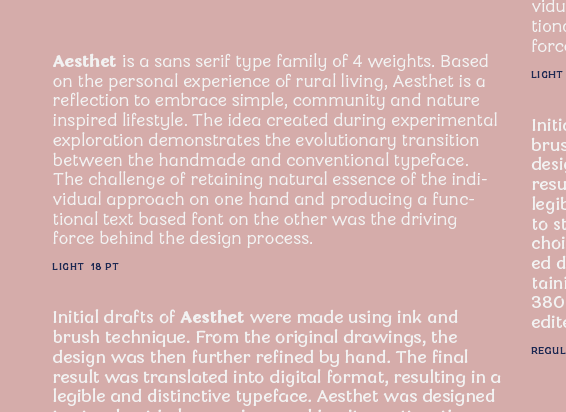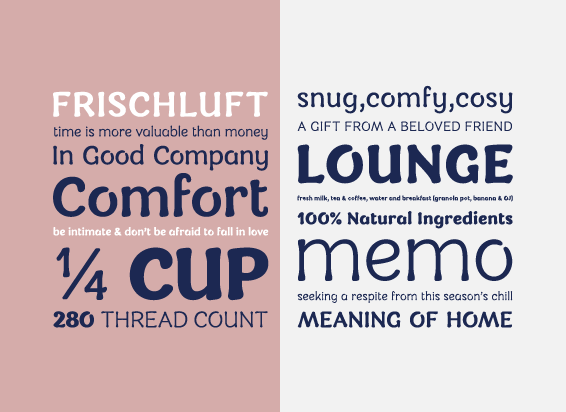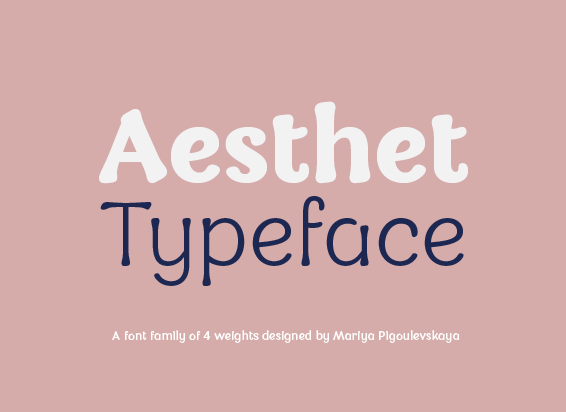
Aesthet Typeface
Aesthet is a sans serif type family of 4 weights. Based on the personal experience of rural living, Aesthet is a reflection to embrace simple, community and nature inspired lifestyle. The idea created during experimental exploration demonstrates the evolutionary transition between the handmade and conventional typeface. The challenge of retaining natural essence of the individual approach on one hand and producing a functional text based font on the other was the driving force behind the design process.